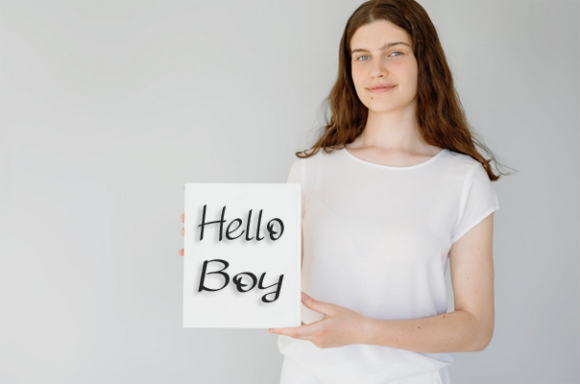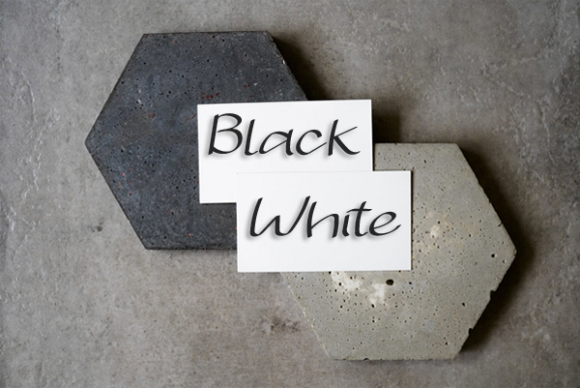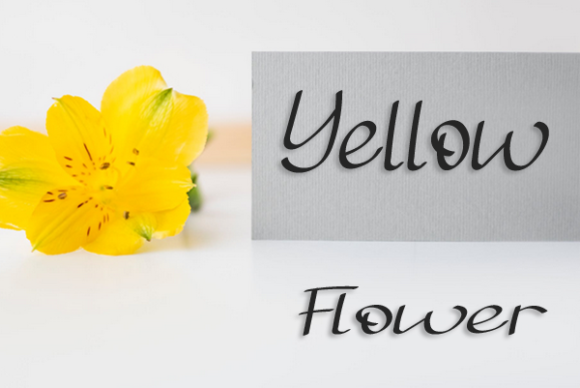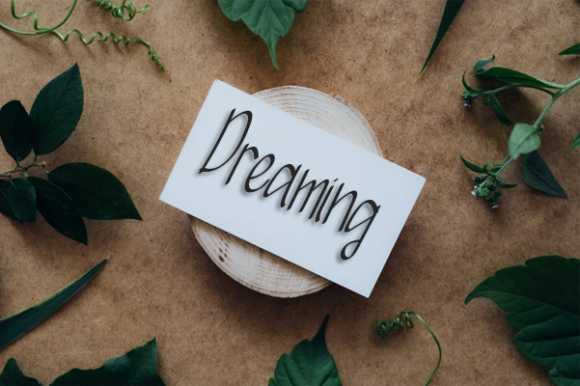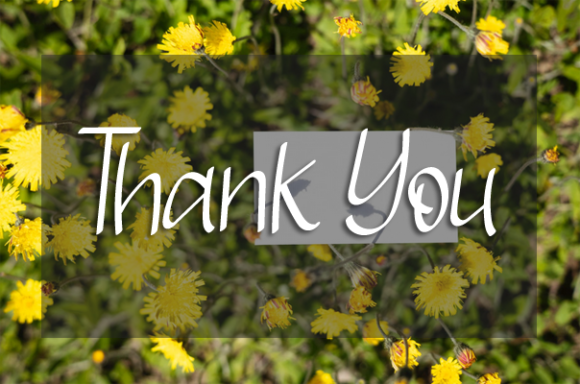
Rocker Font
About Rocker Font
Rocker is a stylish and incredibly elegant handwritten font. It looks stunning on wedding invitations, thank you cards, quotes, greeting cards, logos, business cards, and any other design that needs a handwritten touch.